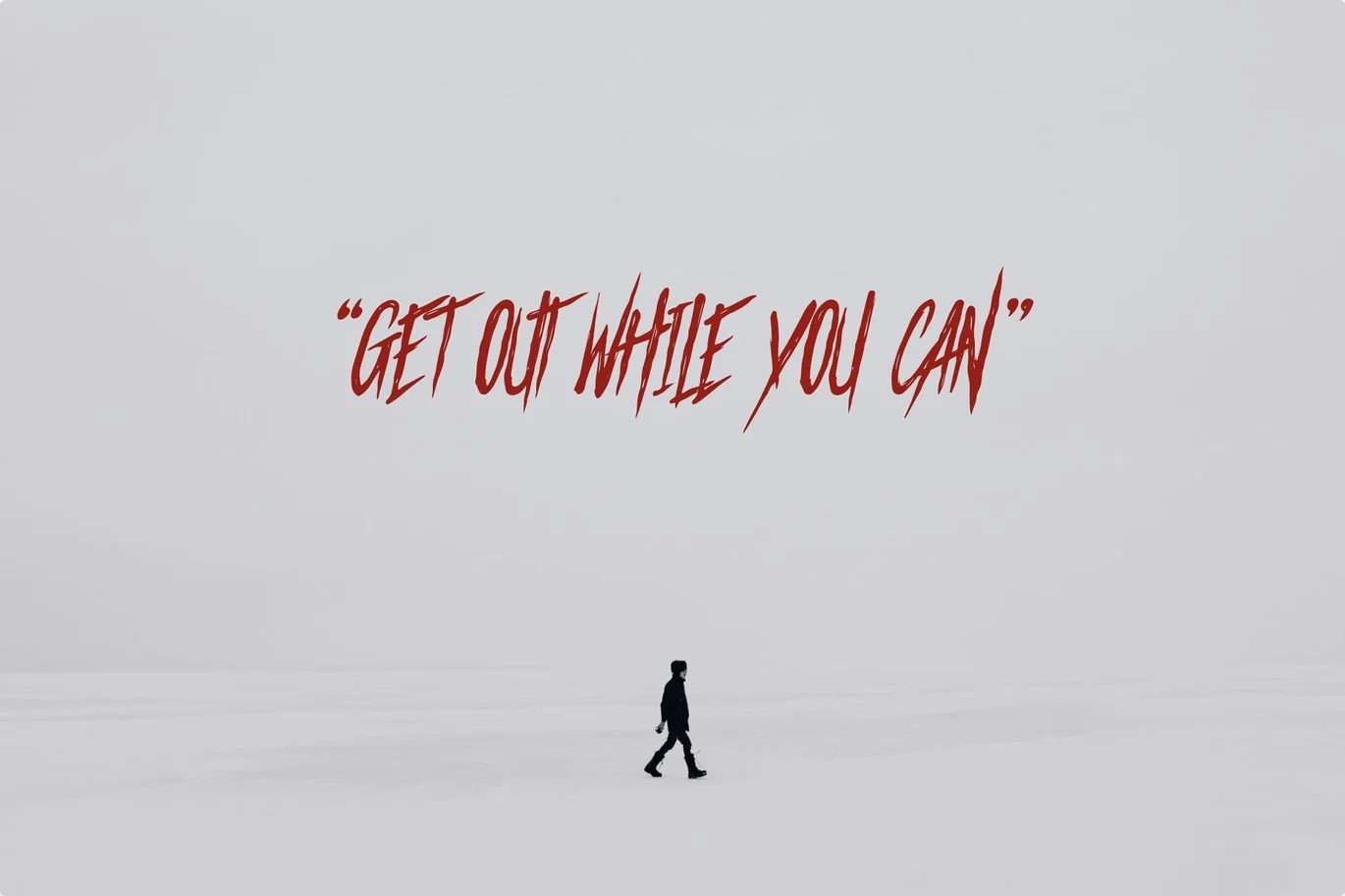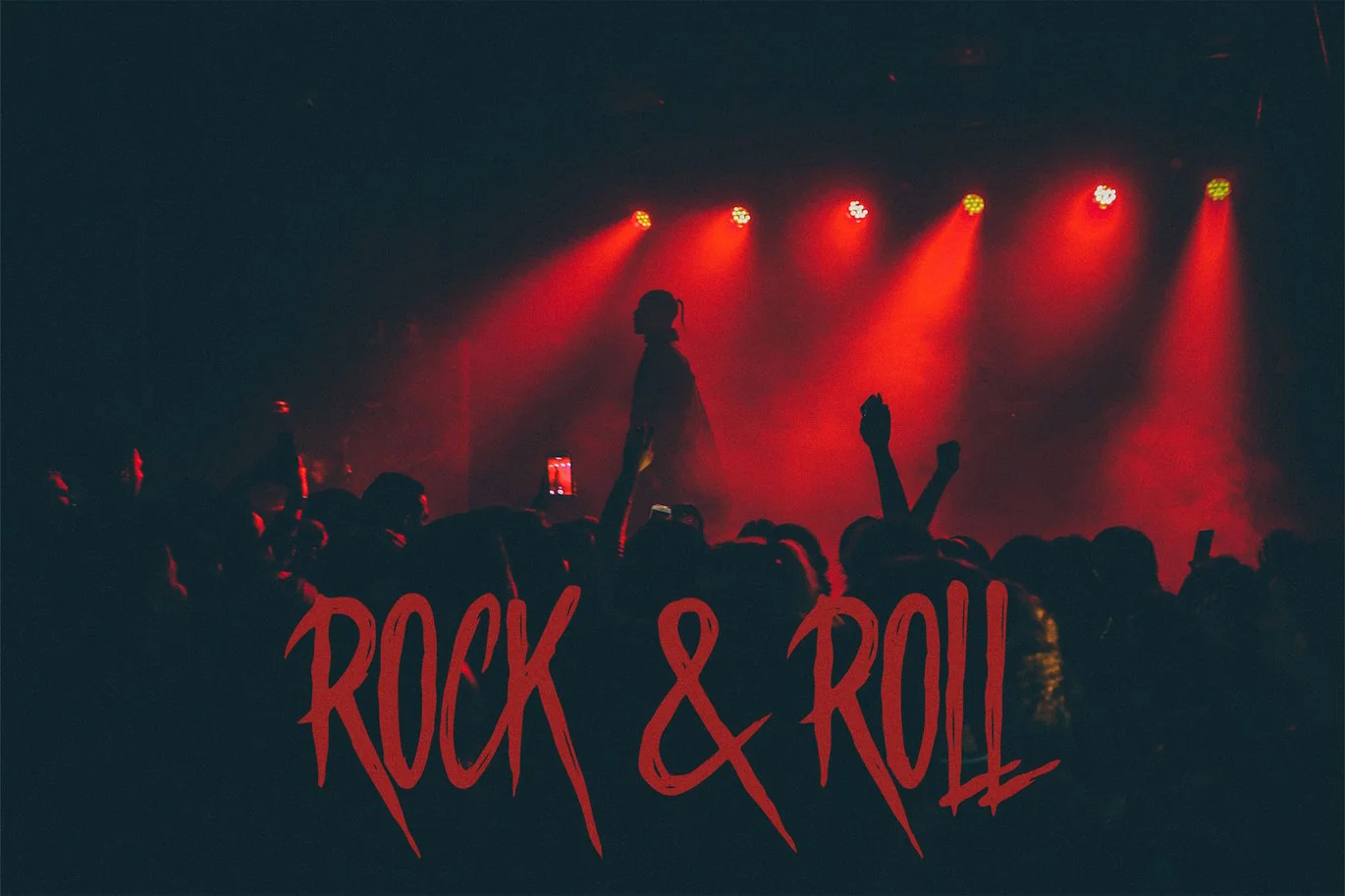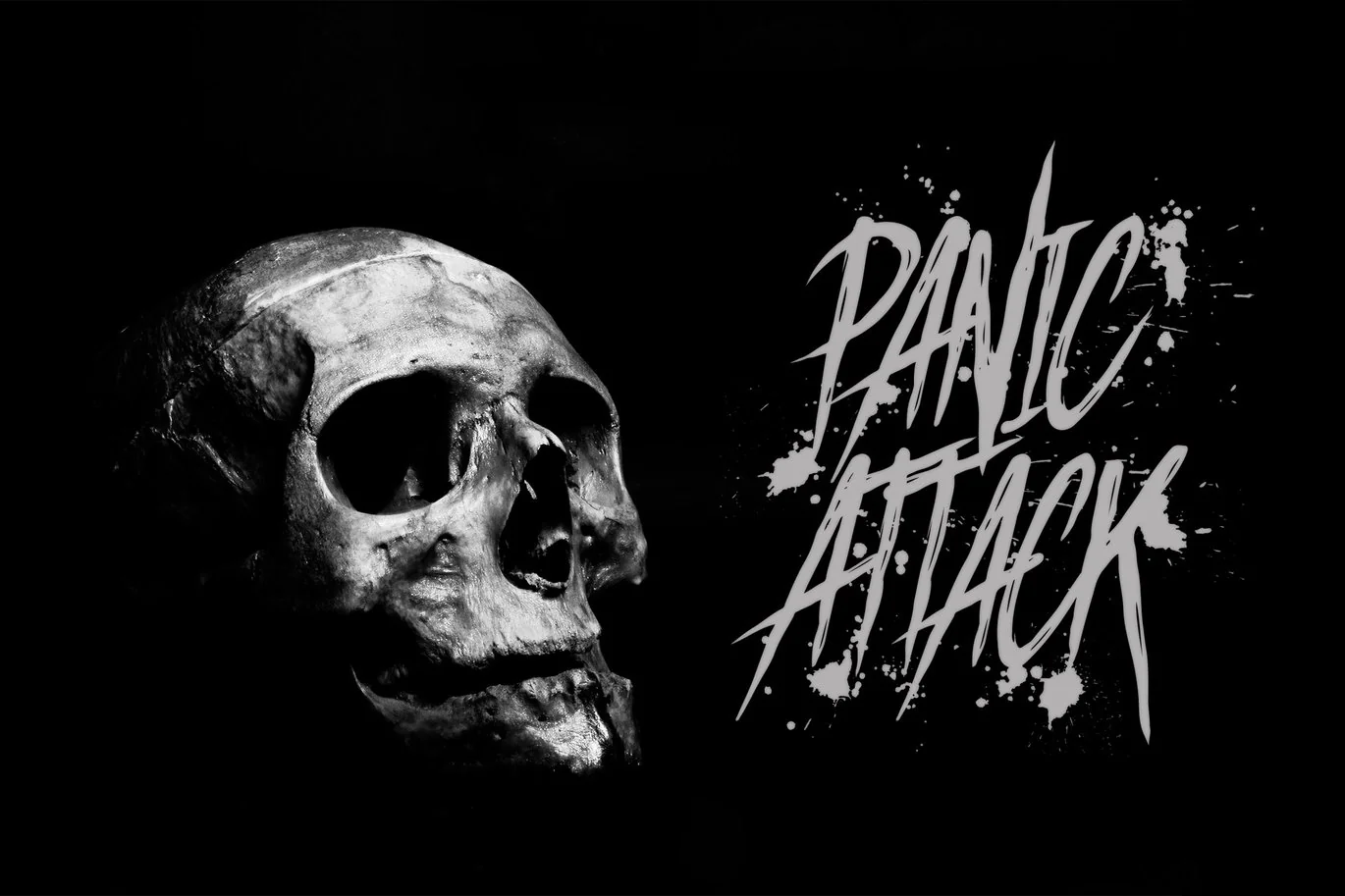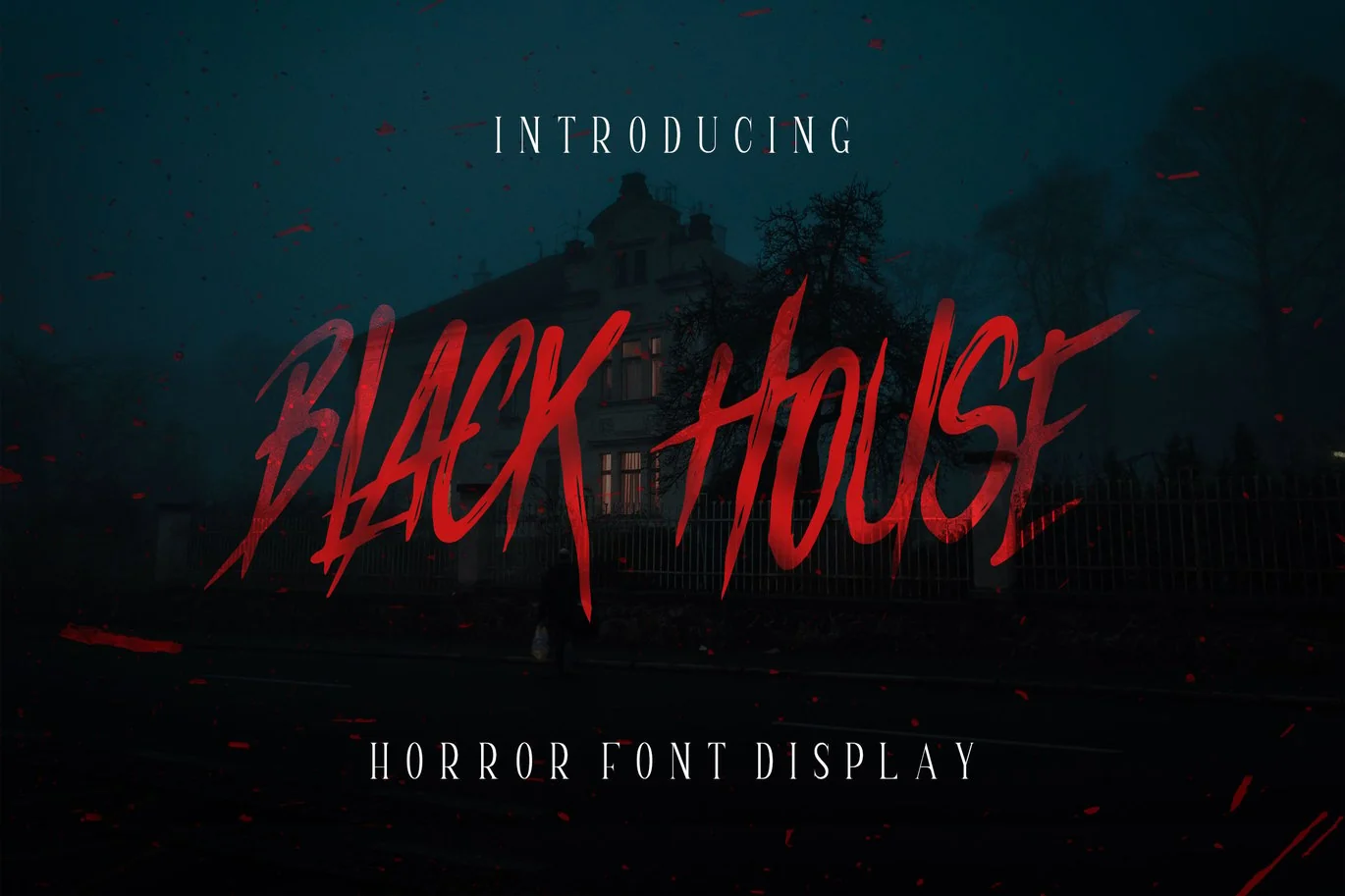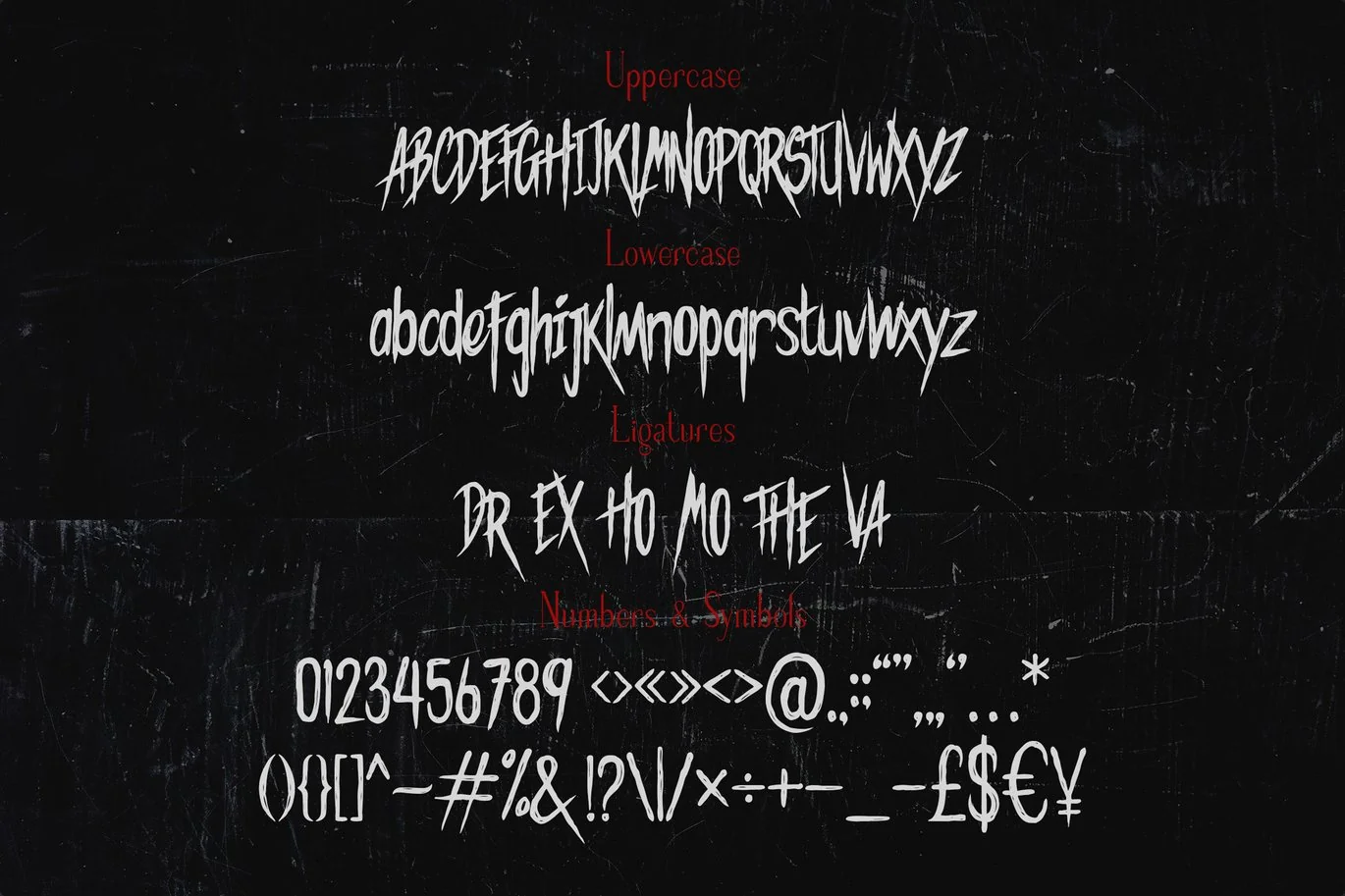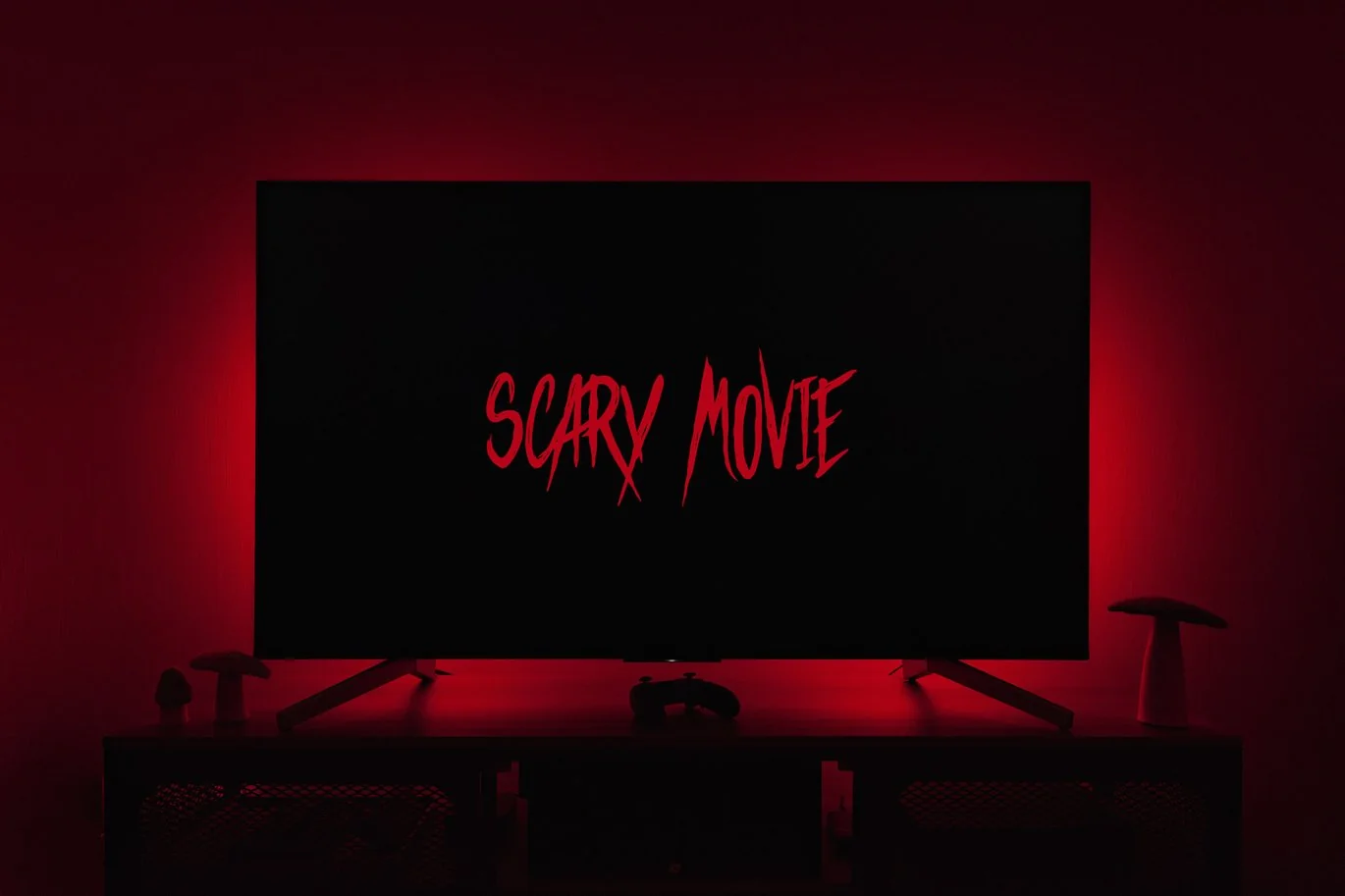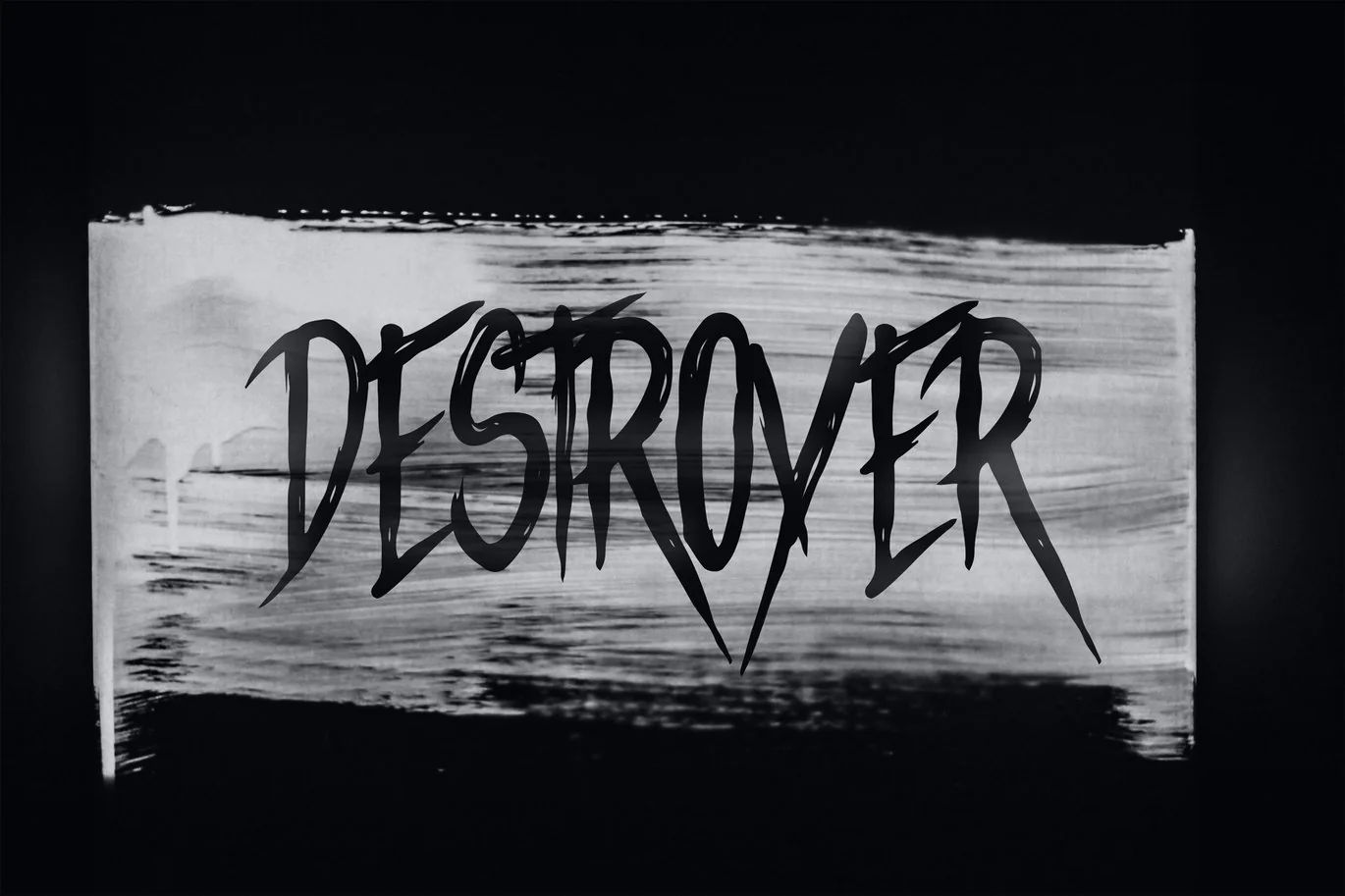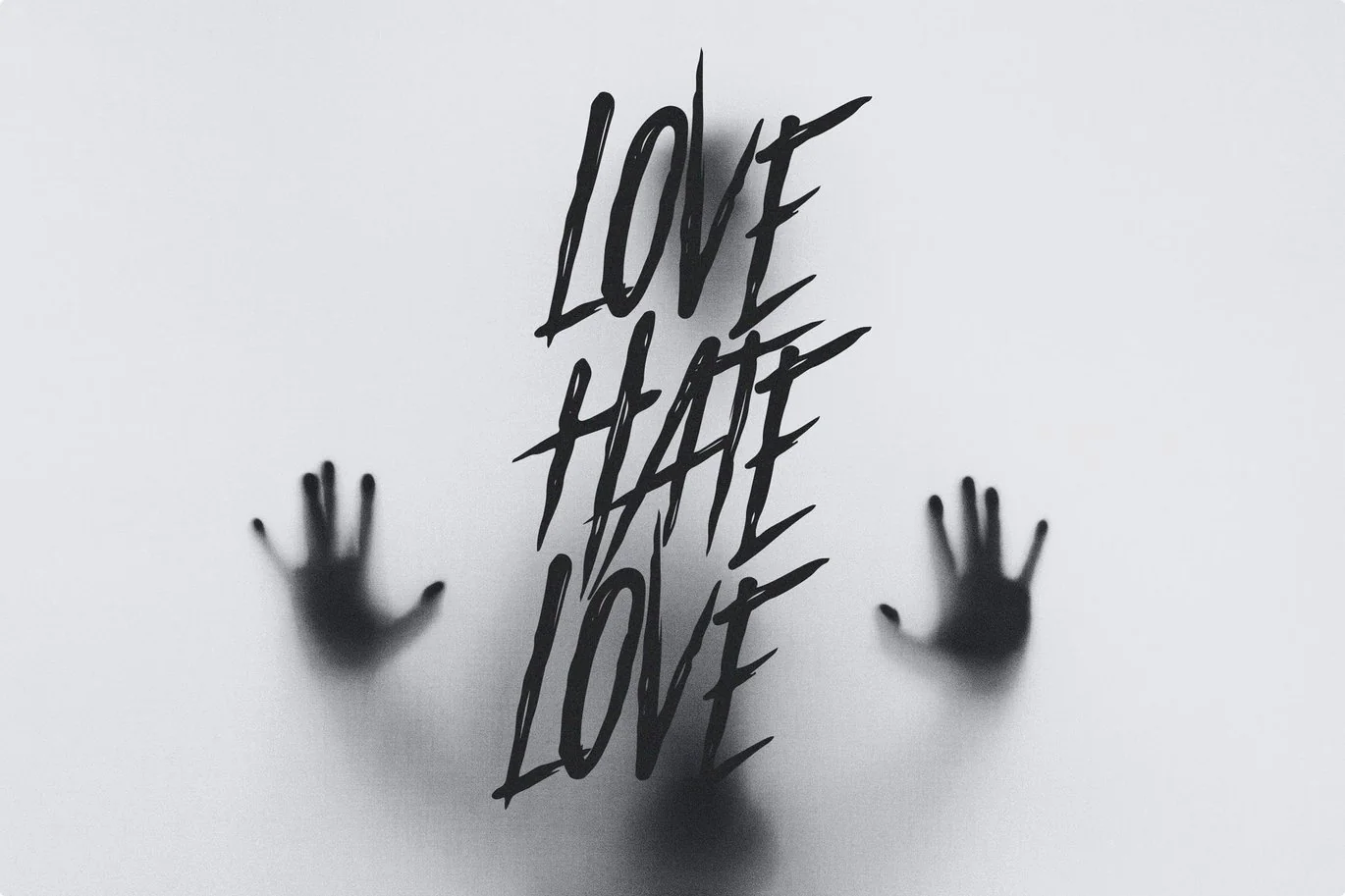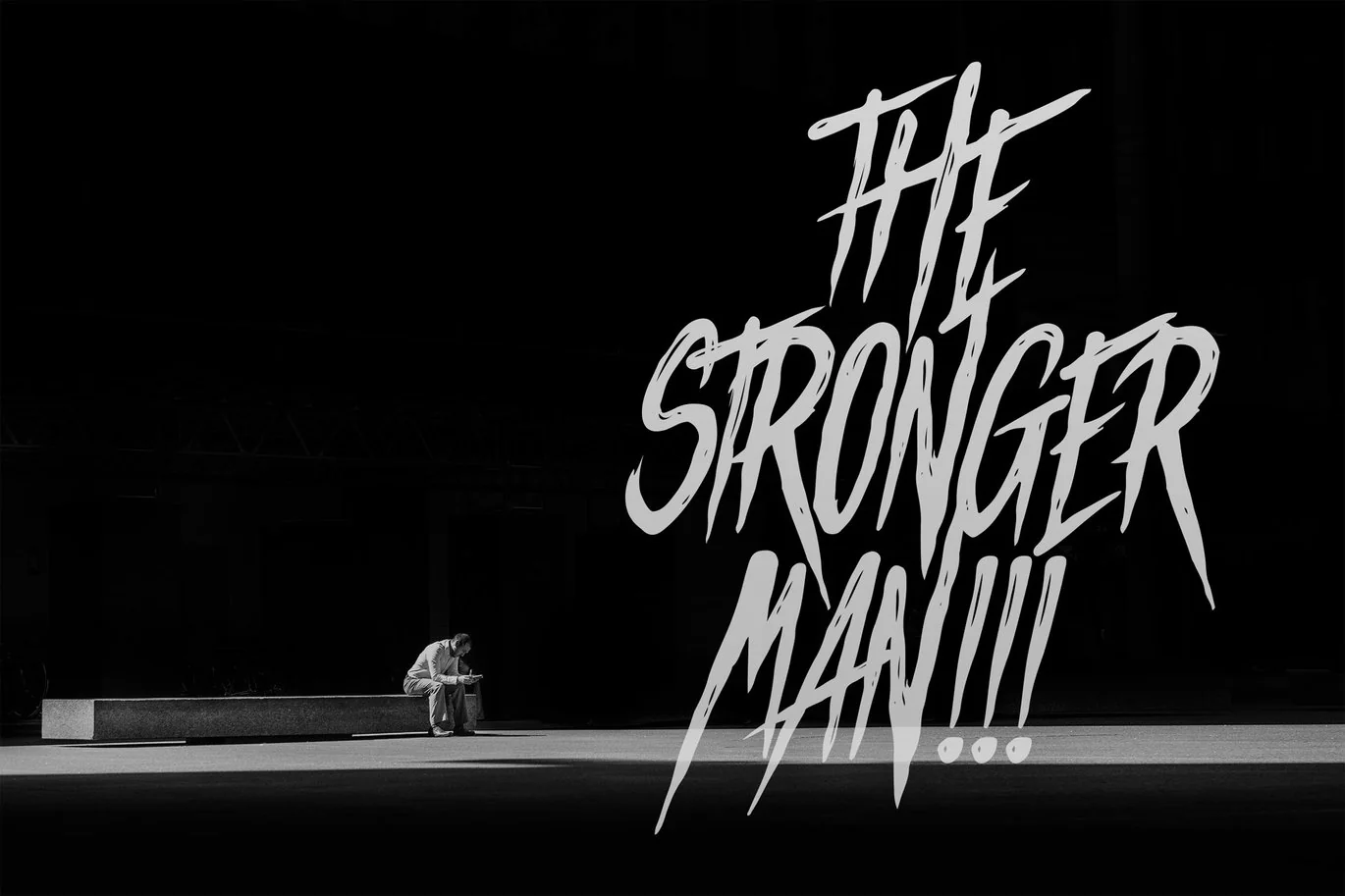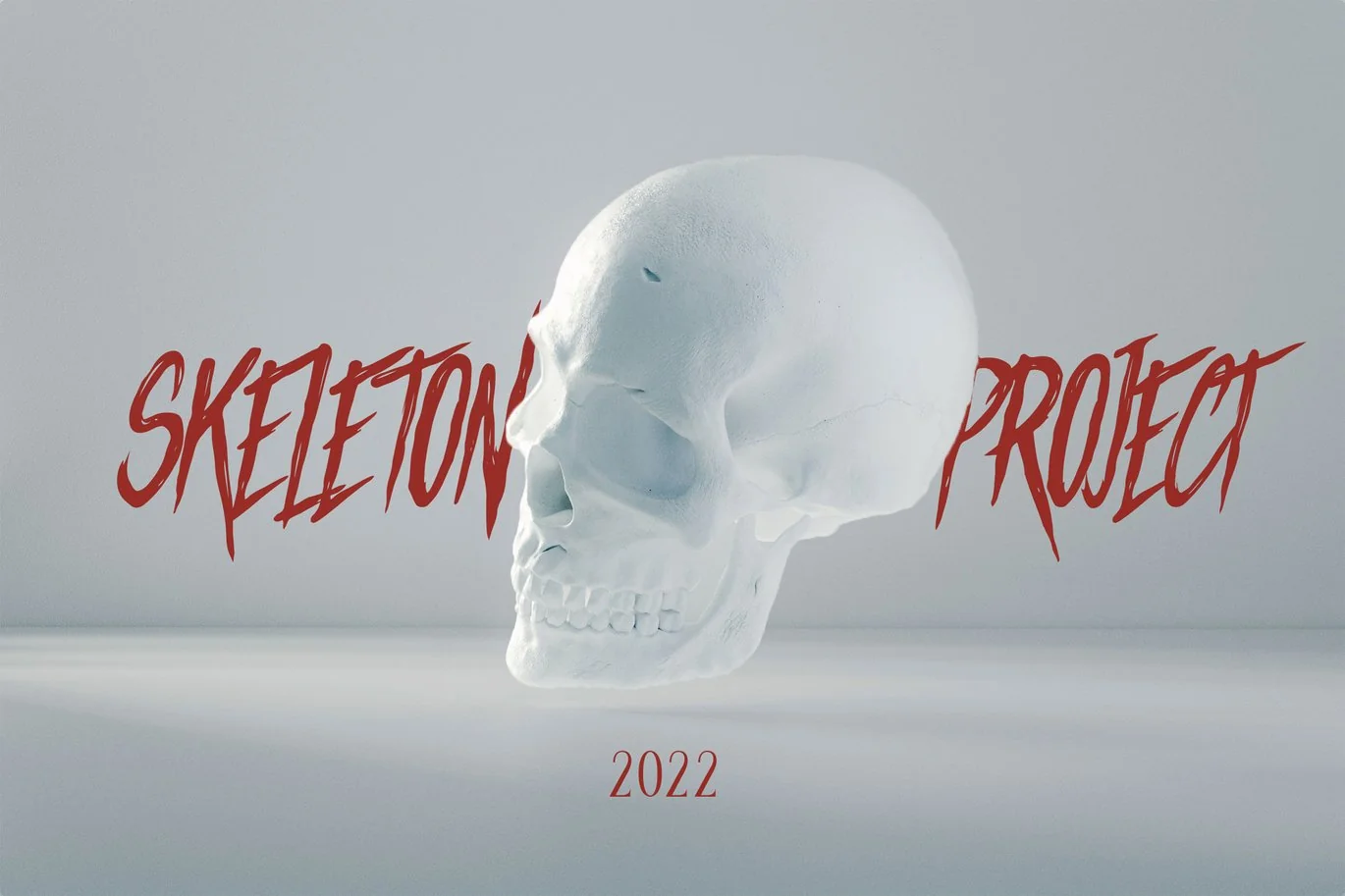
Black House – Horror Font Display
Introducing Black House, is a Horror Font Display has many purpose and suitable for signature logo, badges, logotype, fashion, horror, invitation, poster, modern, halloween, advertising and much more.
- Available Ligatures